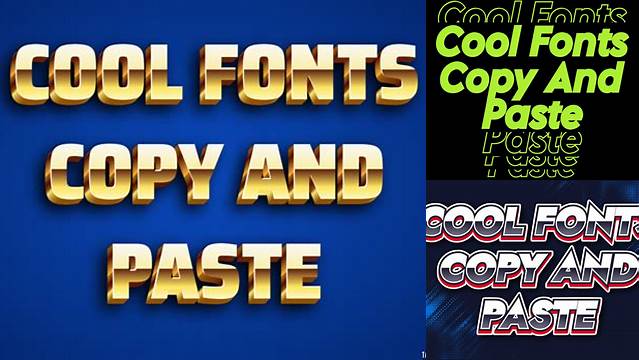
Cool Lettering Fonts: Copy & Paste Now!
Hey guys! Ever wanted to spice up your social media posts, invitations, or creative projects with some unique lettering? You're in the right place! Weβre diving deep into the world of lettering fonts that you can easily copy and paste. Forget about complicated design software β we're making it super simple to add flair to your text. Letβs explore the awesome possibilities! From elegant scripts to bold block letters, the perfect font is just a copy-paste away. So, buckle up and get ready to transform your text into a work of art. We'll cover everything from finding the right font for your needs to actually using it in your projects. Letβs get started!
What are Lettering Fonts?
Lettering fonts are essentially stylized alphabets that go beyond your basic Arial or Times New Roman. These fonts mimic the look of hand-drawn lettering, adding a personal and artistic touch to any text. Think about those beautiful wedding invitations or eye-catching posters β chances are, they used a special lettering font. Lettering fonts can range from elegant and flowing scripts to bold and chunky block letters, each style conveying a different mood and message. When you use lettering fonts, you're not just typing words; you're adding personality and visual appeal. They can make your content stand out, grab attention, and leave a lasting impression. Whether you're crafting a birthday card or designing a logo, the right lettering font can make all the difference. So, what are you waiting for? Let's dive deeper into the types of lettering fonts available and how you can use them to create stunning visuals. Remember, the key is to choose a font that matches the tone and purpose of your project, and with the copy-paste method, it's easier than ever to experiment and find the perfect fit.
Where to Find Lettering Fonts for Copy and Paste
Finding the perfect lettering fonts for copy and paste can be an exciting adventure! The internet is brimming with resources offering a variety of styles to suit any project. One of the best places to start is online font generators. These websites allow you to type your text, preview it in various lettering styles, and then simply copy the generated text to paste wherever you need it. Some popular websites include LingoJam, FontGet, and Cool Text. These platforms offer a user-friendly experience, making it easy to browse through different font styles, from elegant scripts to quirky bubble letters. Another great source is social media. Platforms like Instagram and Pinterest are treasure troves of visual inspiration, often showcasing unique lettering styles used in posts and graphics. You can use these as a starting point to find similar fonts through online generators. Don't forget about dedicated font websites like DaFont or Fontspace. While these sites primarily offer downloadable fonts for design software, they also feature a preview option that lets you see how your text looks in different styles. You can then use this visual to find a matching font style on a copy-paste generator. The key is to explore different options and experiment until you find the lettering font that perfectly captures the essence of your message. With a little bit of searching, you'll discover a world of creative possibilities at your fingertips!
How to Copy and Paste Lettering Fonts
Copying and pasting lettering fonts is a breeze, making it super easy to add style to your projects without needing fancy design software. The first step is to head over to an online lettering font generator. There are tons of these sites out there, like LingoJam or Cool Text, where you can type in your text and see it transformed into various cool lettering styles. Once you've found a font you love, simply select the text generated in that font. This is just like copying regular text β you can either drag your mouse over the letters to highlight them or use the keyboard shortcut (Ctrl+A on Windows, Command+A on Mac) to select all the text in the font box. Next, copy the selected text using Ctrl+C (Windows) or Command+C (Mac). Now, you're ready to paste! Open the application where you want to use the lettering font β this could be a social media post, a document, an email, or even a design program. Place your cursor where you want the text to appear, and then paste using Ctrl+V (Windows) or Command+V (Mac). Voila! Your text should now appear in the cool lettering font you copied. Keep in mind that these fonts are essentially unicode characters, so they'll work in most places that support text. However, the appearance might vary slightly depending on the platform or application you're using. So, don't be afraid to experiment and see how your lettering looks in different contexts. With this simple copy-paste method, you can easily add a touch of creativity to your messages and designs.
Using Lettering Fonts on Social Media
Social media is a playground for creativity, and lettering fonts can be your secret weapon to stand out from the crowd. Imagine your Instagram bio transformed with an elegant script, or your Twitter feed popping with bold, eye-catching text. Using lettering fonts on social media is a fantastic way to express your personality, grab attention, and make your posts more engaging. Platforms like Instagram, Twitter, and Facebook don't offer a wide range of font options within their apps, but that's where copy-paste lettering fonts come to the rescue. You can use online font generators to create text in various styles, then easily copy and paste it into your social media profiles, captions, and comments. Think about using a playful bubble font for a fun announcement or a sophisticated serif font for a more professional post. Lettering fonts can also be a great way to highlight key phrases or calls to action in your captions, making them more likely to be noticed. When choosing a font for social media, consider your brand and the overall aesthetic you want to create. Consistency is key, so try to stick to a few fonts that align with your style. Also, keep in mind readability β while fancy fonts can look amazing, make sure your text is still easy to read on smaller screens. Don't be afraid to experiment with different fonts to see what resonates with your audience. A touch of creative lettering can go a long way in making your social media presence more memorable and engaging.
Lettering Fonts for Invitations and Cards
Creating invitations and cards is the perfect opportunity to unleash the magic of lettering fonts. Whether it's a wedding invitation, a birthday card, or a simple thank-you note, the right font can set the tone and add a personal touch that store-bought options just can't match. Think about the feeling you want to evoke β for a formal event like a wedding, elegant script fonts can create a sense of sophistication and romance. For a casual birthday party, playful and whimsical fonts might be the way to go. And for a heartfelt thank-you, a classic serif font can convey sincerity and warmth. When using lettering fonts for invitations and cards, consider the overall design and the amount of text you need to include. If you have a lot of information to convey, choose a font that is both stylish and easy to read. Avoid overly ornate fonts that might make your text look cluttered or difficult to decipher. You can also mix and match different fonts to create visual interest β for example, use a script font for the names and a simpler font for the details. Don't forget to pay attention to the size and spacing of your text. Make sure it's large enough to be easily read, and adjust the spacing between letters and lines to create a balanced and visually appealing layout. With the ease of copy-paste lettering fonts, you can create custom invitations and cards that truly reflect your personal style and make a lasting impression on your recipients.
Using Lettering Fonts in Graphic Design
Lettering fonts are a graphic designer's best friend, adding a touch of personality and flair to any project. Whether you're designing a logo, creating marketing materials, or crafting social media graphics, the right lettering font can elevate your work and help your message stand out. Think about the impact a hand-drawn script font can have on a logo for a boutique or the boldness of a sans-serif font in a website header. The possibilities are endless! When using lettering fonts in graphic design, it's crucial to consider the overall brand identity and the message you want to convey. A playful font might be perfect for a children's brand, while a classic serif font can lend credibility to a professional business. It's also important to think about readability β even the most beautiful font won't be effective if it's difficult to read. In graphic design, you often work with different design software, such as Adobe Photoshop or Illustrator. While these programs offer a wide range of fonts, copy-paste lettering fonts can be a great way to add unique styles that aren't readily available. You can use online font generators to create text in the lettering style you want, then copy and paste it into your design software. From there, you can further customize the text by adjusting the size, color, and spacing. Don't be afraid to experiment with different fonts and combinations to create a visual hierarchy and make your designs more engaging. With lettering fonts, you can add that extra layer of creativity and make your graphic designs truly shine.
Lettering Fonts for Logos
Your logo is the face of your brand, and the font you choose plays a vital role in conveying your brand's personality and values. Lettering fonts can be a fantastic way to create a unique and memorable logo that stands out from the competition. Think about some of the most iconic logos β many of them feature distinctive lettering styles that contribute to their recognizability. When choosing a lettering font for your logo, consider your target audience, your brand's message, and the overall aesthetic you want to achieve. A playful and whimsical font might be perfect for a children's brand, while a sleek and modern font can convey innovation and sophistication. A classic serif font can lend credibility and trust to a more traditional business, while a bold sans-serif font can create a sense of confidence and energy. It's also important to think about the versatility of the font. Your logo will likely be used in various sizes and formats, so choose a font that looks good both large and small. A font that's too intricate or delicate might lose its impact when scaled down. Using copy-paste lettering fonts can be a great way to experiment with different styles and see how they look in your logo. You can generate text in various fonts and paste them into your design software to see which one best captures your brand's essence. Remember, your logo is a long-term investment, so take the time to choose a lettering font that truly represents your brand and resonates with your audience. A well-chosen font can be the foundation of a strong and memorable logo.
Creating Custom Lettering with Copy and Paste
While there are tons of fantastic lettering fonts available for copy and paste, sometimes you might want to add your own unique touch. The good news is, you can create custom lettering effects using the copy-paste method, even without advanced design skills. One way to do this is by combining different lettering fonts to create a hybrid style. For example, you could use a bold sans-serif font for the main part of your text and then add a decorative script font for a subheading or a special word. This can add visual interest and make your text stand out. Another technique is to use symbols and characters to enhance your lettering. Many online font generators offer a range of symbols and special characters that you can copy and paste into your text. These can be used to add accents, embellishments, or even create visual patterns within your lettering. You can also experiment with different spacing and alignment to create custom layouts. Try adjusting the space between letters and words to create a more airy or condensed feel. You can also align your text in different ways, such as centered, left-aligned, or right-aligned, to create different visual effects. Another way to create custom lettering is by layering different fonts or text elements. You can copy and paste the same text in different fonts and then layer them on top of each other, creating a unique 3D or shadow effect. This can be a fun way to add depth and dimension to your lettering. The key to creating custom lettering with copy and paste is to experiment and have fun. Don't be afraid to try different combinations and techniques until you find a style that you love. With a little creativity, you can create truly unique lettering effects that are all your own.
Best Lettering Font Styles for Different Projects
Choosing the right lettering font can make or break your project. The font you select should align with the project's purpose and tone, ensuring your message resonates effectively. Let's explore some of the best lettering font styles for various projects:
Always test your fonts in different contexts and on various devices. A font that looks great on your computer might appear differently on a mobile screen or in print. Testing ensures your font maintains readability and visual appeal across all mediums. Failure to test can lead to unexpected and undesirable results.
By avoiding these common mistakes, you can use lettering fonts effectively and create designs that are both beautiful and functional. A thoughtful approach to font selection enhances the impact of your message and elevates the overall quality of your work. Happy designing!